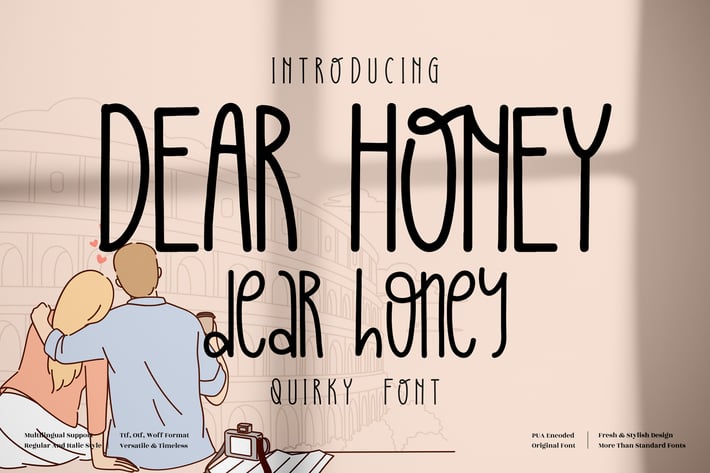
Dear Honey Quirky Font
Dear Honey is a tall, quirky hand-lettered display font with a friendly, modern vibe. Its narrow letterforms, playful bounce, and smooth monoline strokes make headlines feel personal and captions feel warm—like notes in a travel diary. Balanced spacing keeps it easy to read on screens and in print, while the whimsical rhythm adds just the right dose of charm.
Use it to soften bold layouts, add personality to minimal designs, or bring a human touch to brand storytelling. From postcards and posters to socials and packaging, Dear Honey makes your words feel closer.
+ Hand-lettered, modern quirky display style
+ Tall, narrow letterforms with a gentle bounce
+ Smooth curves & clean nodes for crisp print/screen results
+ Optimized kerning and spacing for readability
+ Logos & branding for boutiques, lifestyle, and beauty
+ Social media posts, quotes, and story covers
+ Invitations, greeting cards, and stationery
+ Posters, postcards, and travel diaries
+ Packaging, labels, and tags
+ Blog headers, YouTube thumbnails, and Pinterest pins
Skinny, sweet, and full of charm—let your words smile with Dear Honey.